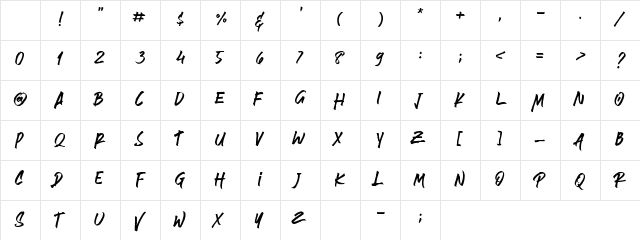
Complete Brushlie Solid Demo Regular glyph index. Displaying only characters natively supported by Brushlie Solid Demo Regular font.
Brushlie Solid Demo flows with the natural rhythm of handwritten lettering, making it ideal for designs that call for warmth and personal expression.
Font Pairing: Combine Brushlie Solid Demo with a simple geometric sans for maximum contrast - the tension between flowing curves and clean structure is a classic typographic pairing.
Pro Tip: Use Brushlie Solid Demo for short runs of text - names, titles, or taglines. Extended body copy in script faces tires the eye quickly.